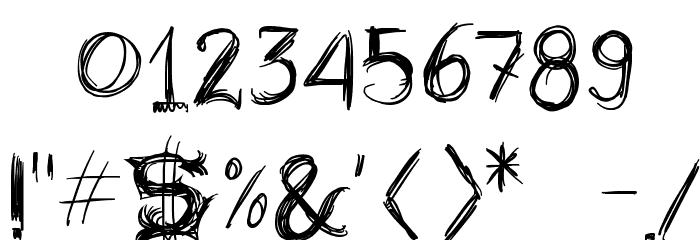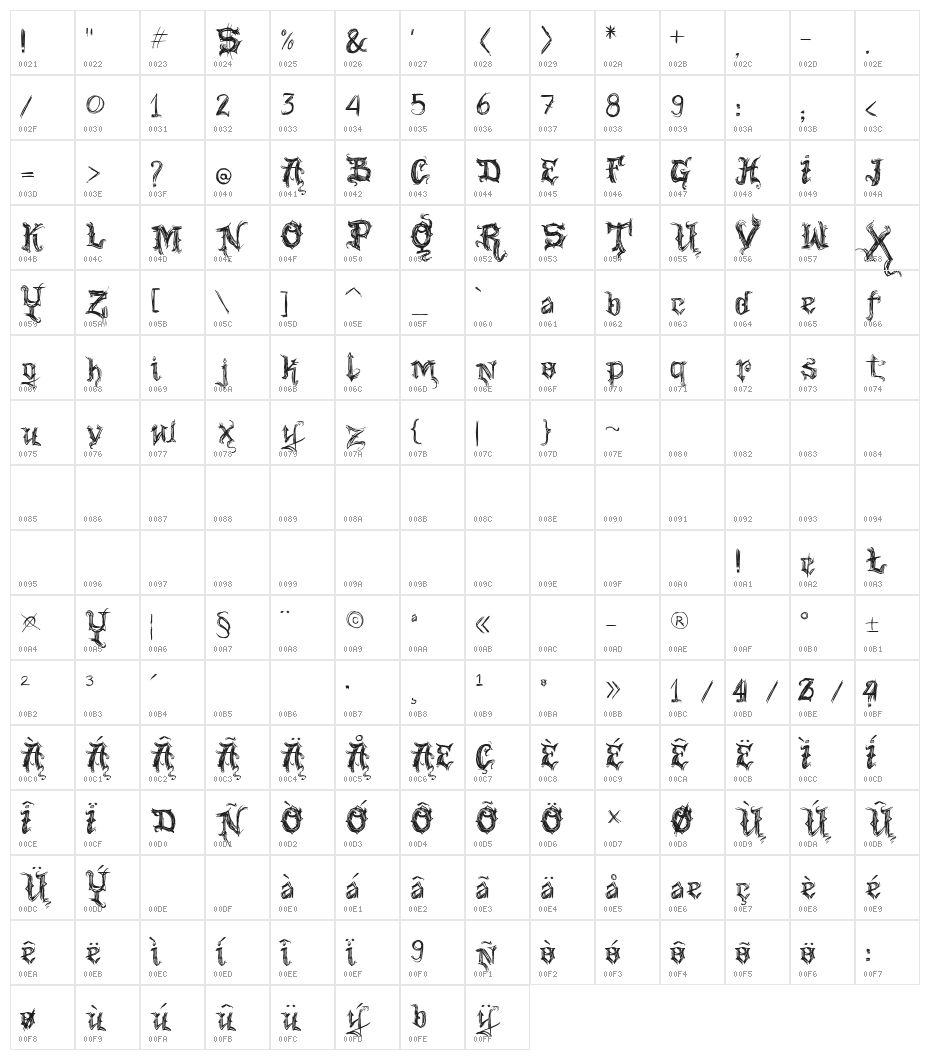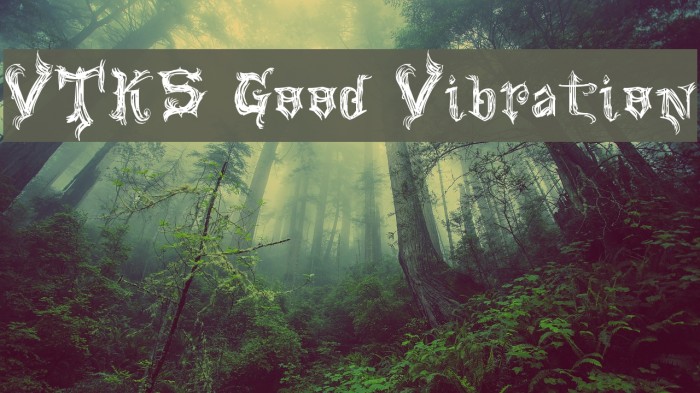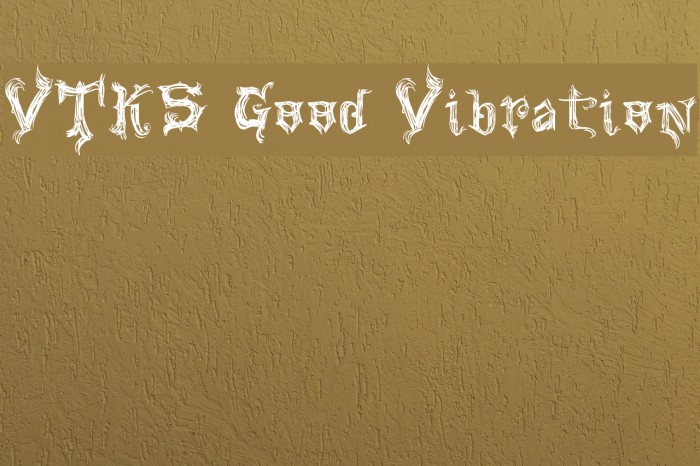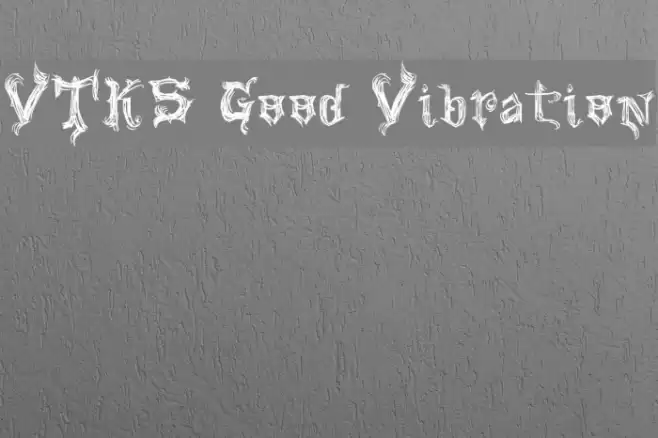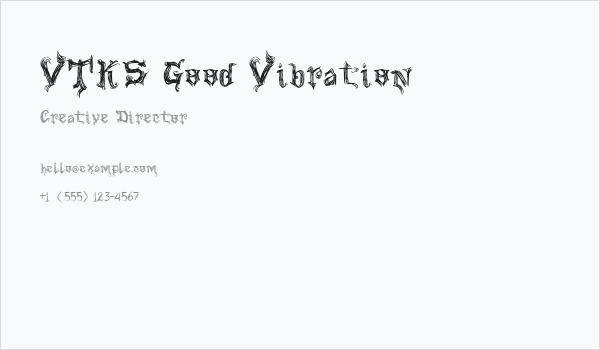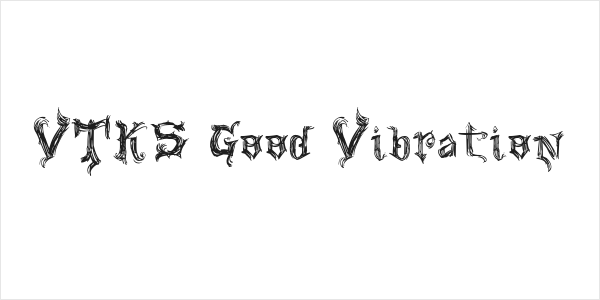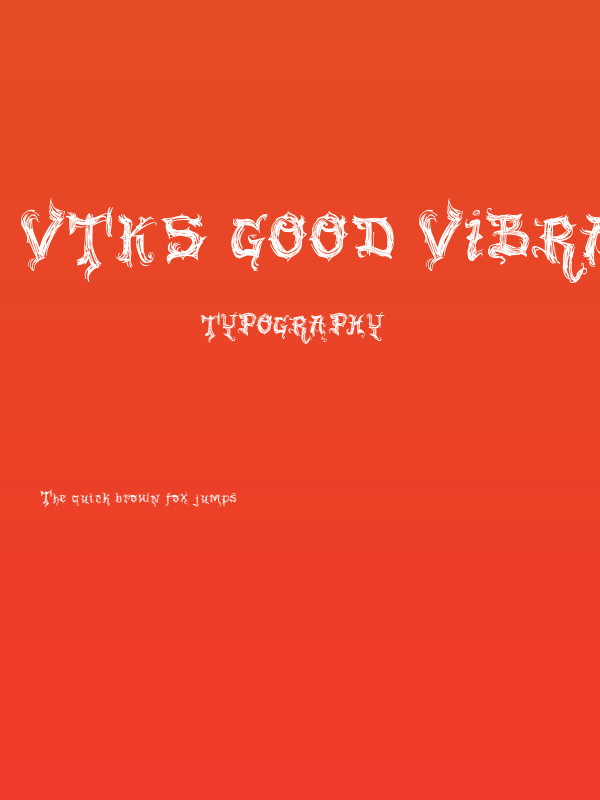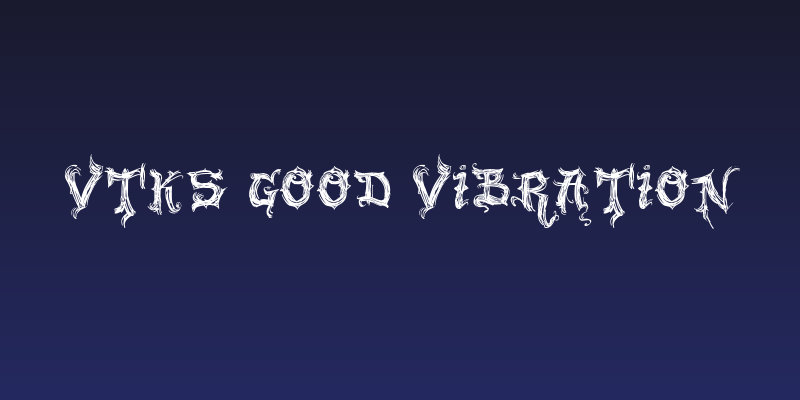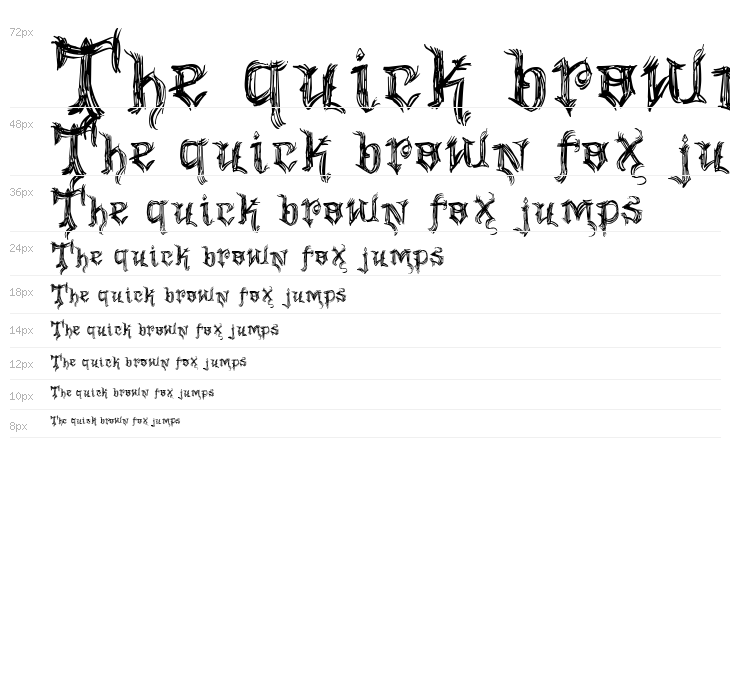
VTKS Good Vibration Font
VTKS Good Vibration Description
This font features a highly decorative and intricate design, characterized by its ornate and swirling elements that give it a unique, almost gothic appearance. The letters are embellished with elaborate strokes and flourishes, creating a sense of movement and energy. The uppercase and lowercase letters maintain a consistent style, with sharp edges and pointed serifs that enhance its dramatic flair. Numbers and special characters are equally stylized, ensuring a cohesive look across all glyphs. This font is ideal for projects that require a bold and artistic statement, capturing attention with its distinctive and elaborate design.
| Overall Style | Gothic, Decorative |
| Proposed Projects | Perfect for album covers, posters, event invitations, and branding that seeks a bold, artistic touch. |